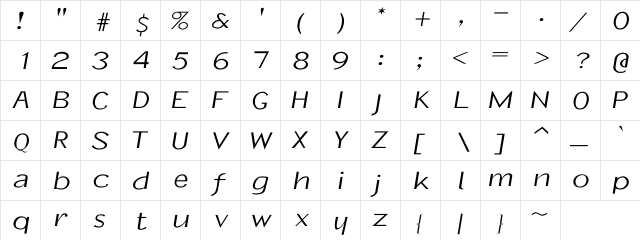
InformalOblique Wd Regular
Design Context for InformalOblique Wd Typeface
InformalOblique Wd takes a measured approach to typography — its balanced proportions and neutral character make it a reliable workhorse for both digital and print work. The slanted form adds forward momentum and visual energy.
Pro Tip: Use InformalOblique Wd for emphasis, pull quotes, and subheadings where its slanted energy can add rhythm to the layout.